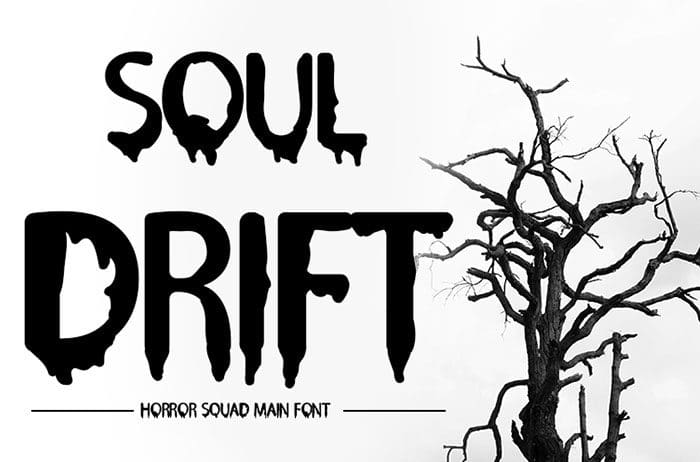
Soul Drift display font is a dashing, creepy and ambitious font. Use this spooky and unique display font to bring any DIY project to life! Designed this font by Inermedia Studio. You can also search more freeĀ Display Fonts.